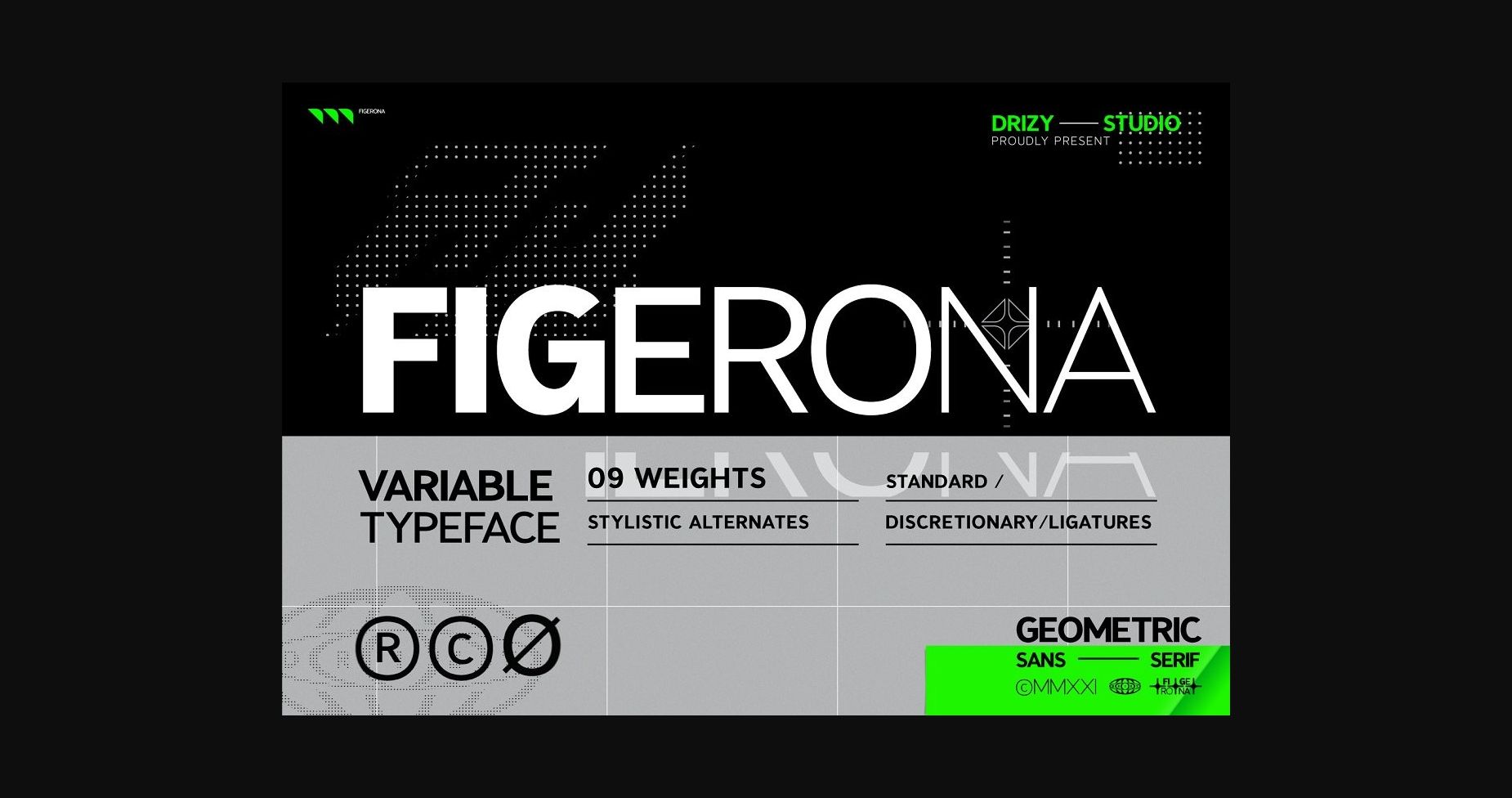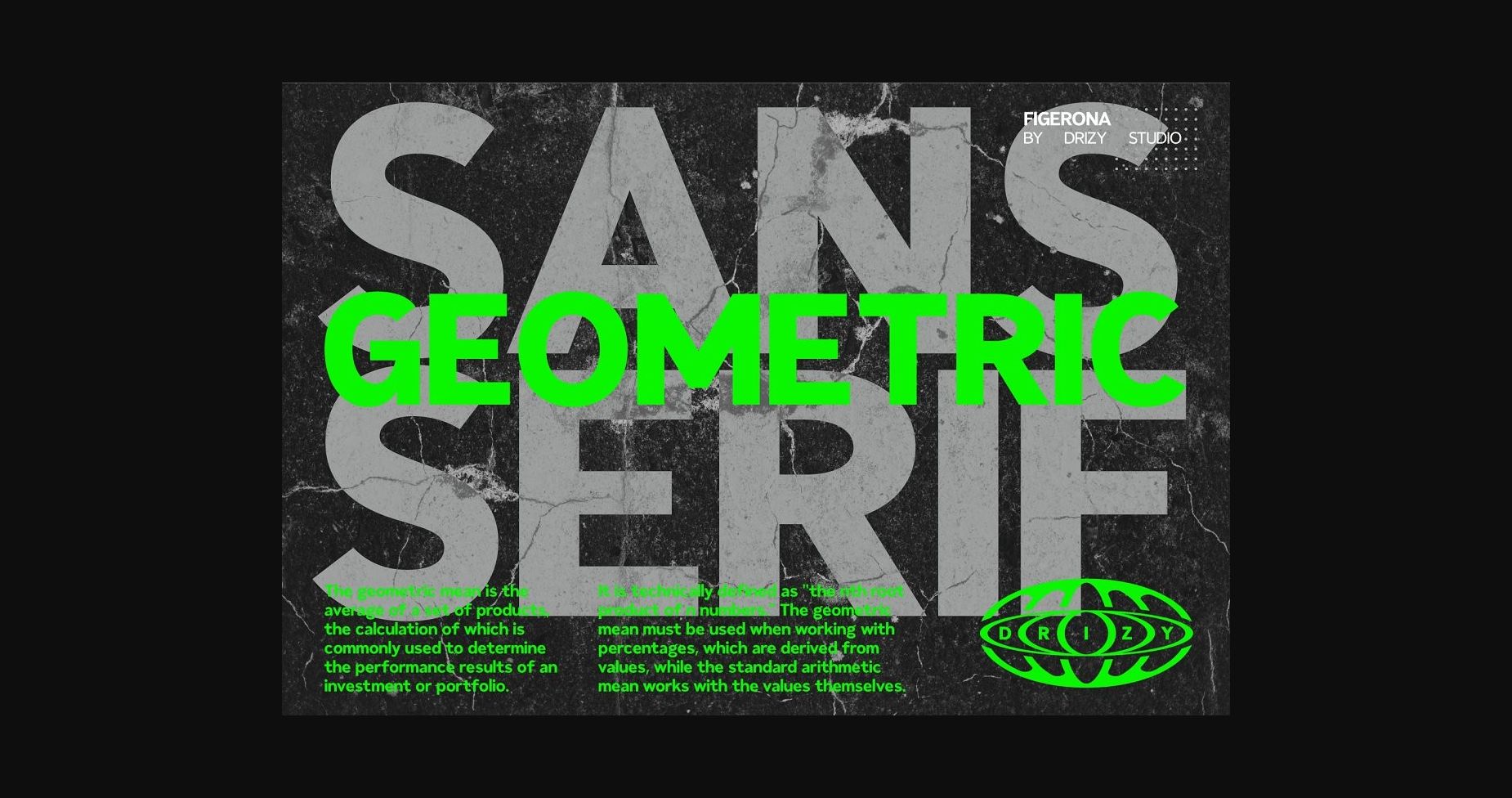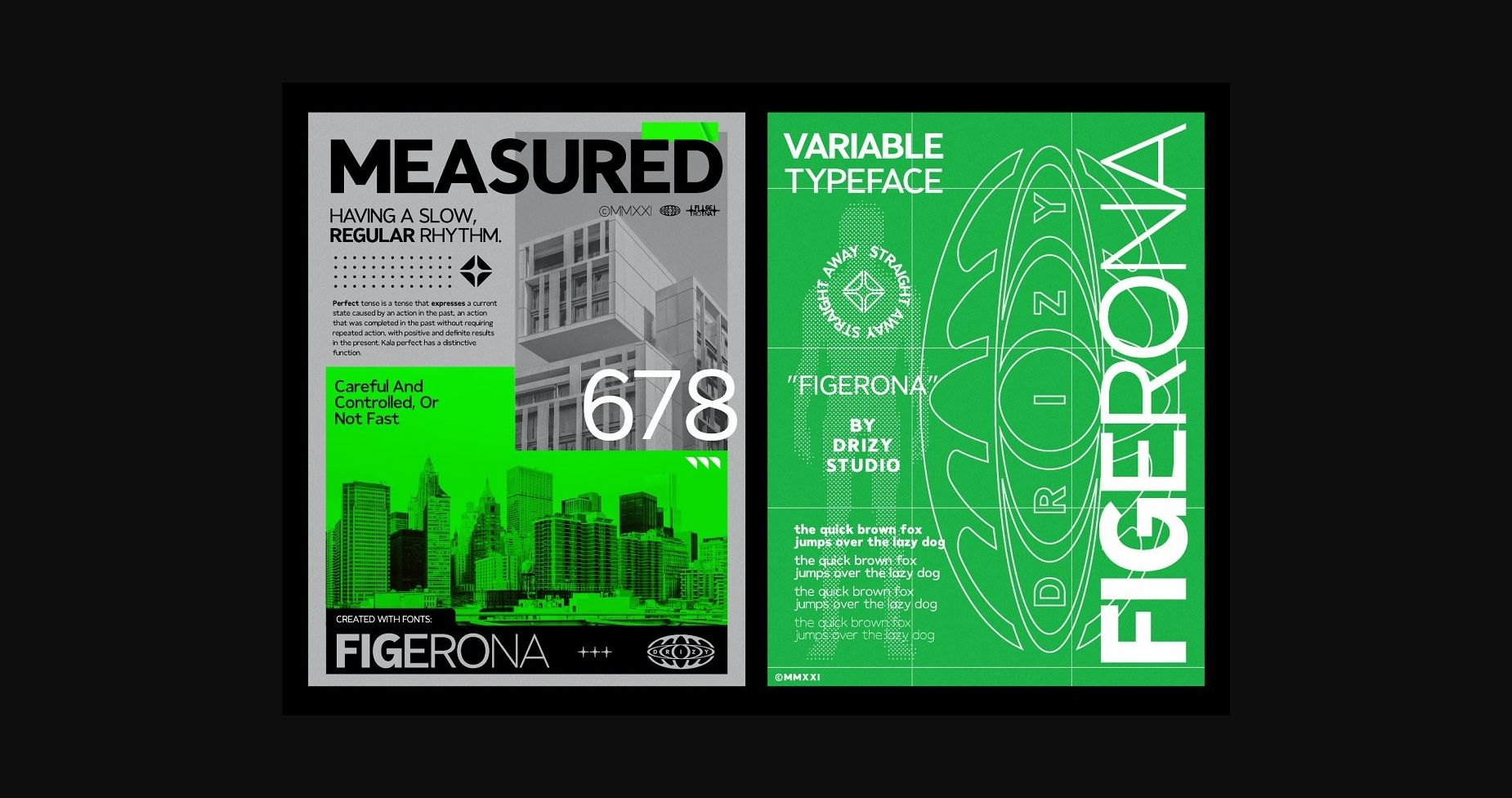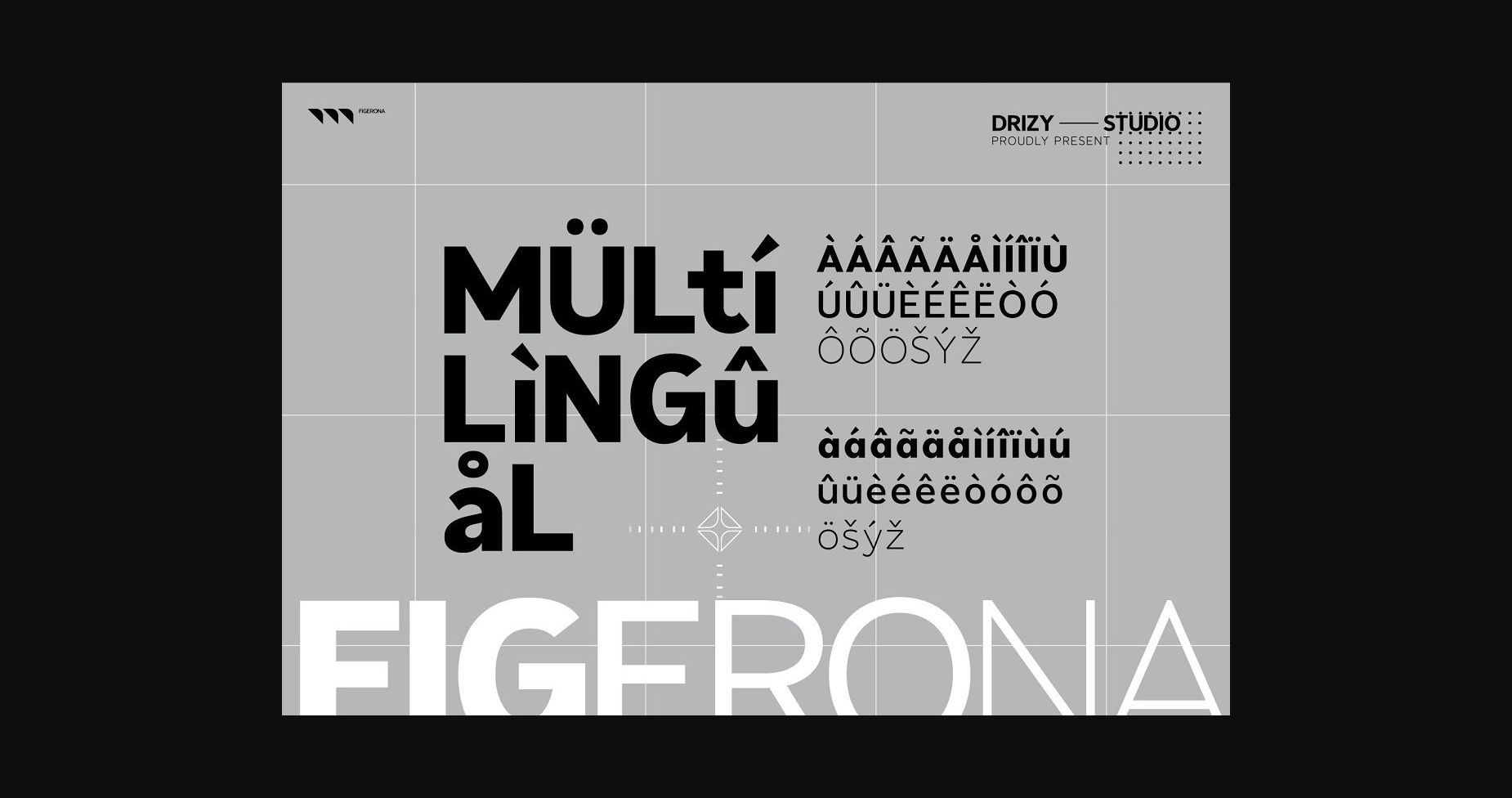
About Figerona Font
Figerona is a modern and cool sans serif font. This font is ideal for writing web designs, business cards, or pretty much anything else that requires a unique touch.